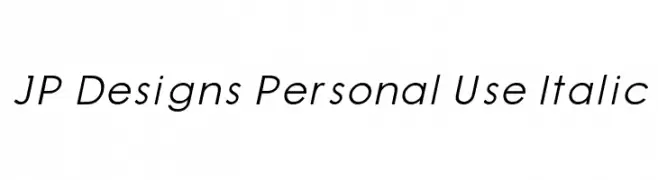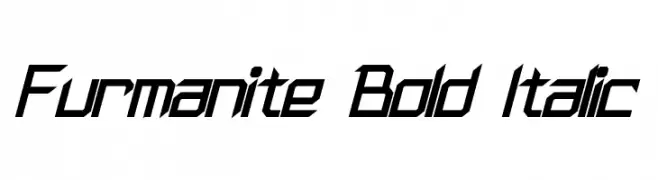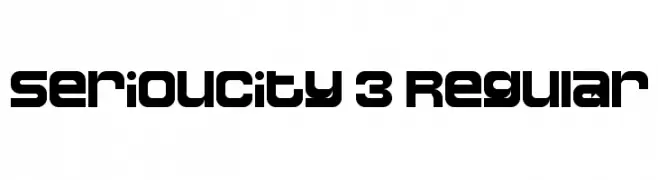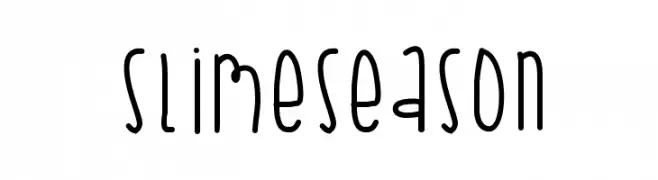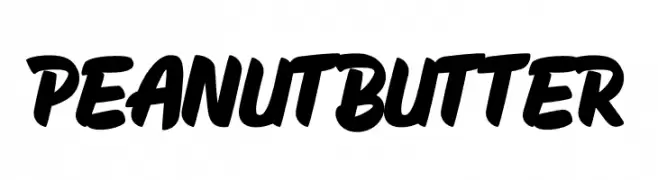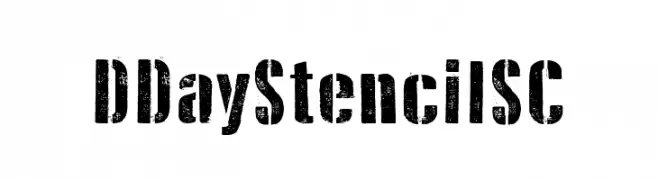
A modern, geometric sans-serif font with a clean and professional appearance.
A bold, italicized font with a futuristic and angular design.
A bold, geometric font with a modern and futuristic style.
A modern, geometric sans-serif font with a sleek and minimalistic design.
A playful, hand-drawn font with tall, narrow letters and a whimsical style.
A bold, playful handwritten font with rounded, consistent strokes.
A bold, distressed stencil font with a vintage, industrial feel.